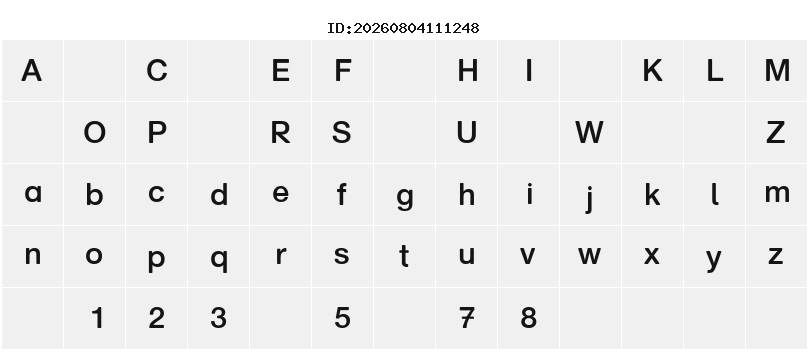
• Font Name: Norddruck
• Full Font Name: Norddruck
Norddruck.ttf is a modern, elegant sans-serif font designed for ultimate readability and visual harmony. Perfect for branding, headlines, web design, and print materials.